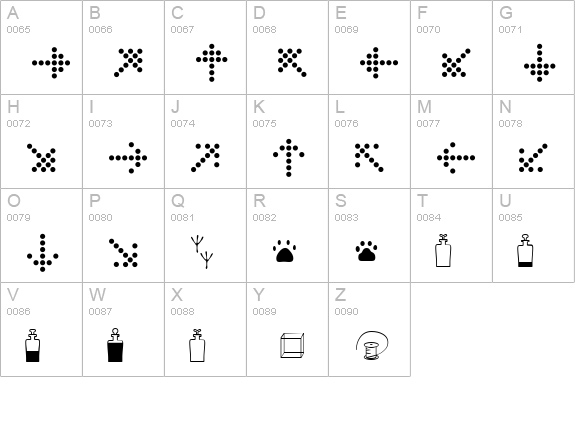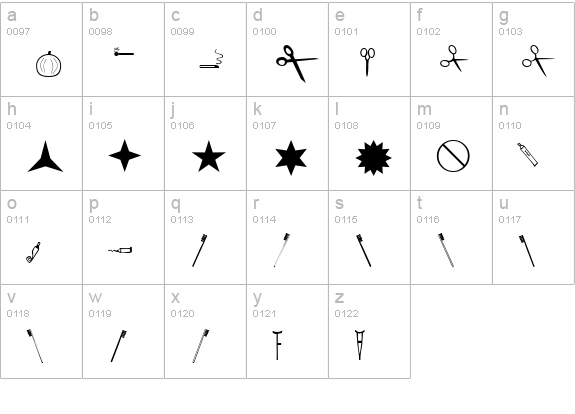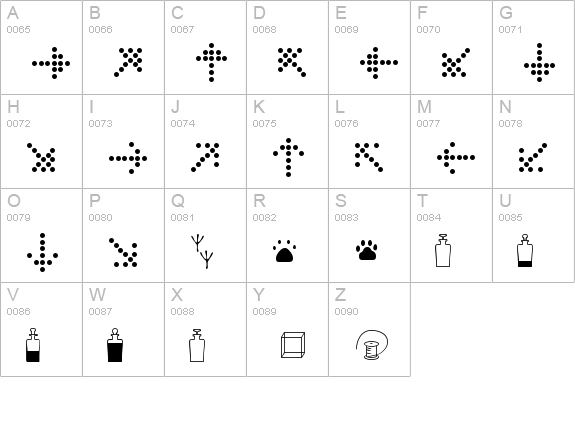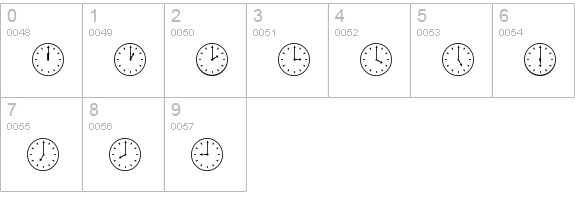
XIngDingLeftover Font Details
Introducing XingDingLeftover font - a unique and versatile typeface designed to make your projects stand out with its playful and quirky aesthetic. This font features a charming blend of whimsical curves and bold lines, making it perfect for a wide range of design applications. Whether you're working on branding, packaging, posters, or any other creative project, XingDingLeftover font will add a touch of fun and originality to your designs. Its eye-catching style is sure to captivate your audience and leave a lasting impression. Best of all, XingDingLeftover font is completely free to download at FontsMarket.com, making it accessible to designers of all levels. So why wait? Add this delightful font to your collection today and unleash your creativity with XingDingLeftover!